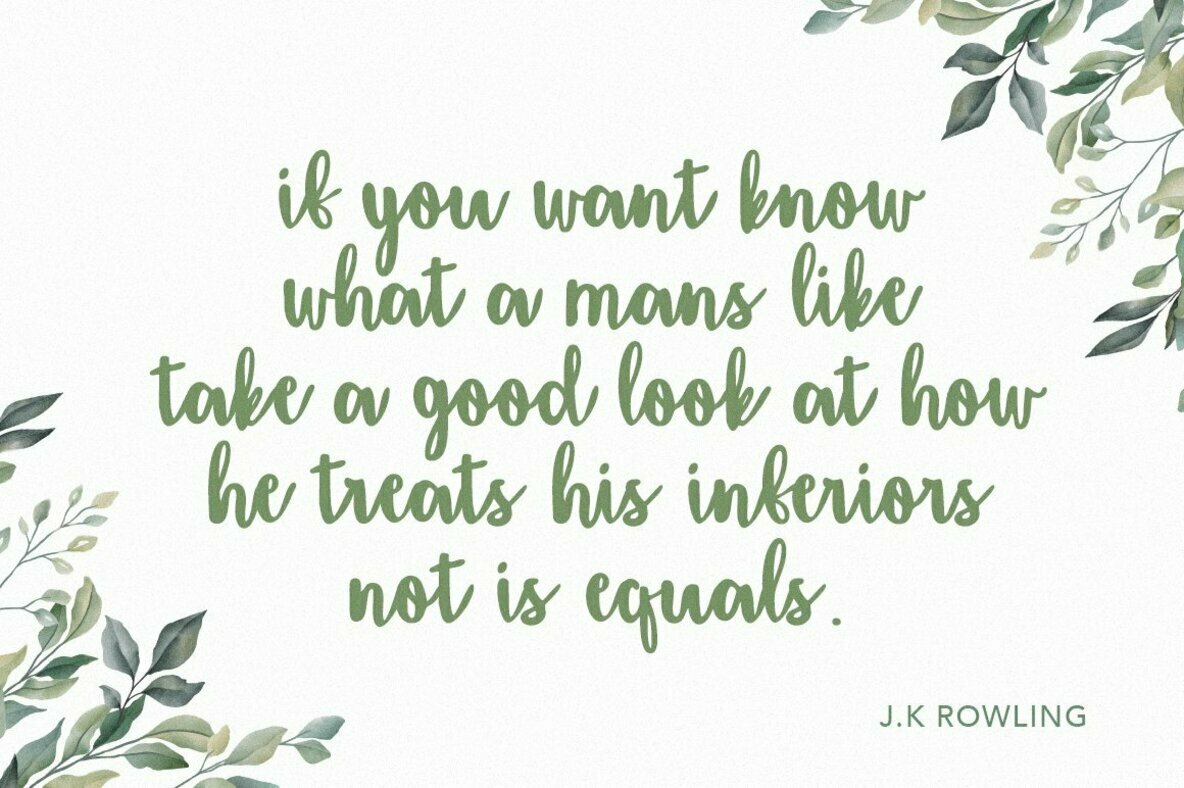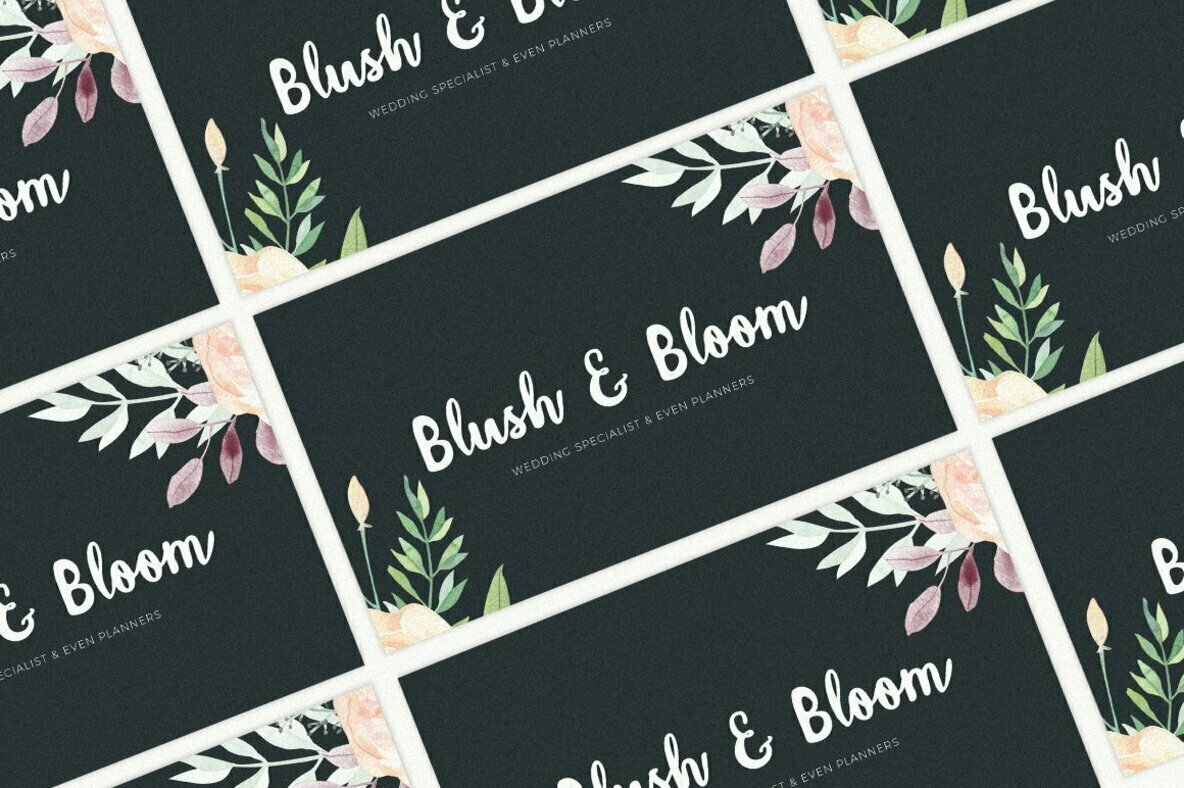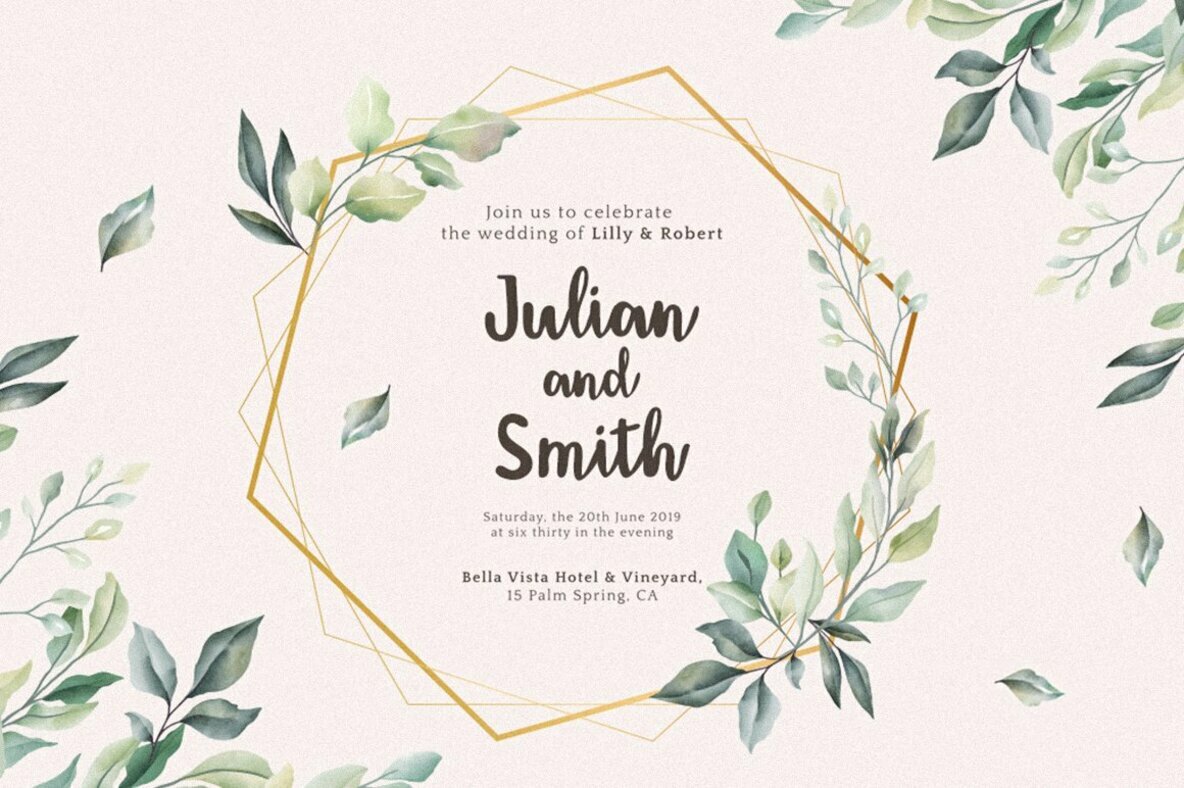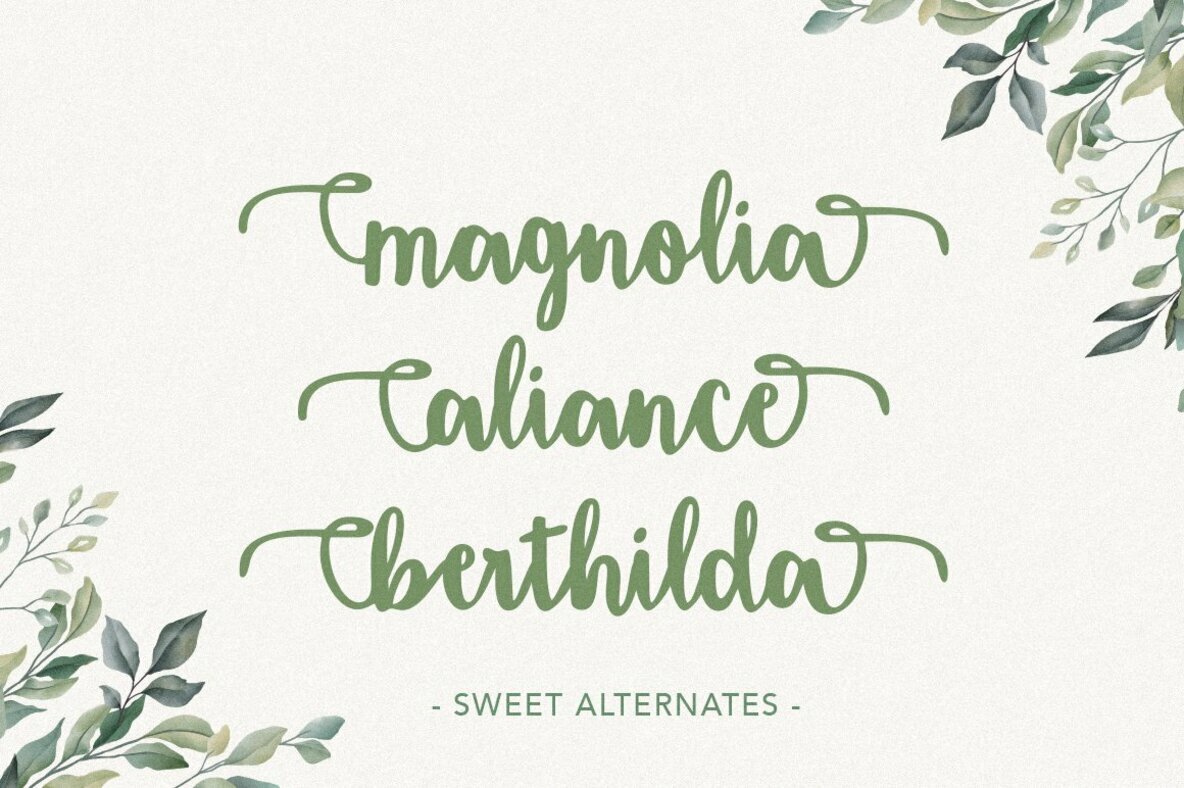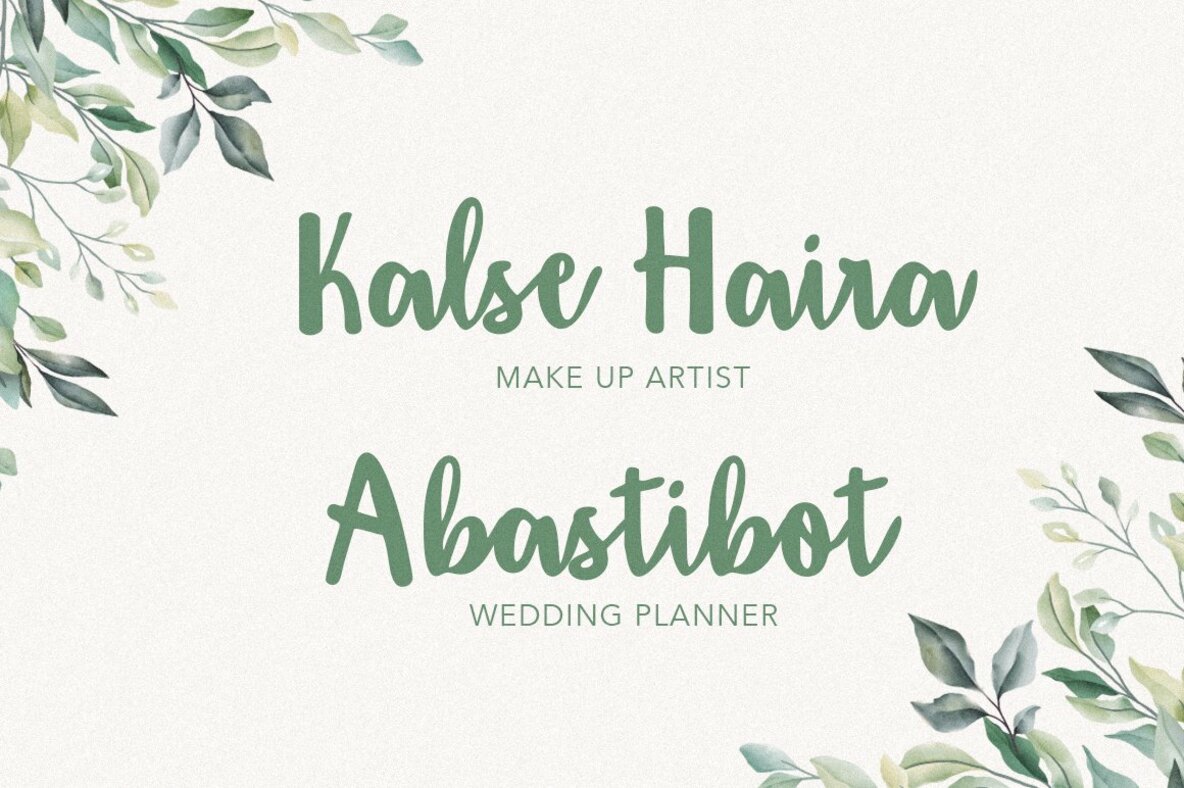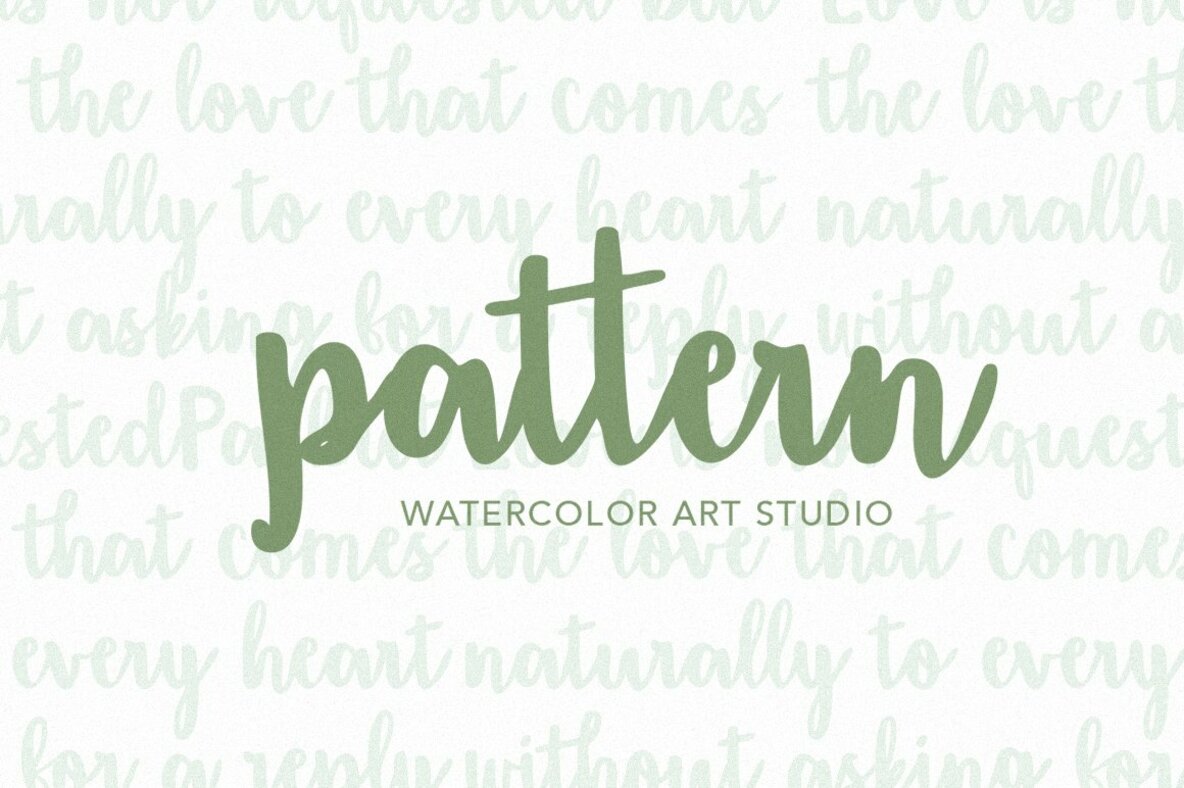
Amigueta Script
Amigueta Script, crafted by Solidtype Studio, offers a charming and dynamic script style that effortlessly captures attention. Its hand-lettered essence makes it particularly suitable for a variety of professional and personal projects. Whether you're designing titles, signatures, logos, or wedding invitations, Amigueta Script imbues each with a touch of elegance and flair. Its versatility ensures it stands out in signage, letterheads, labels, newsletters, posters, and badges.Amigueta Script: A Dynamic Handlettered Typeface
Amigueta Script’s swashes and dynamic strokes make it an excellent choice for designers seeking an expressive and adaptable script font.